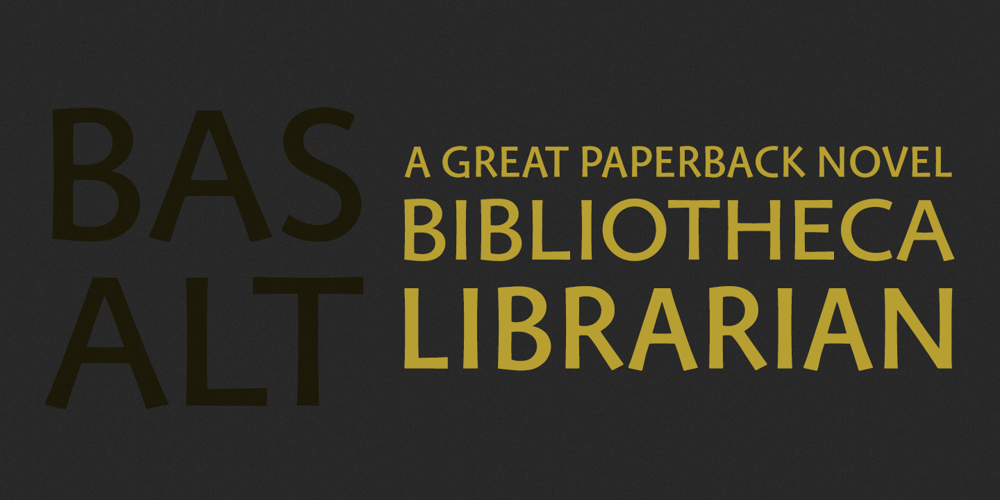
Basalt
Basalt font
Basalt Font Family was designed by Sumner Stone and published by Stone Type Foundry. Basalt contains 2 styles and family package options. Basalt is made for signage. In a single font there are capitals in wide and narrow versions as well as a set of compatible arrows. Basalt was first used for signage at the Cecil H. Green Library, Stanford University.